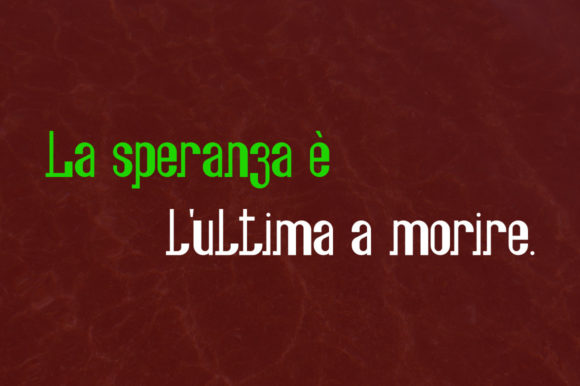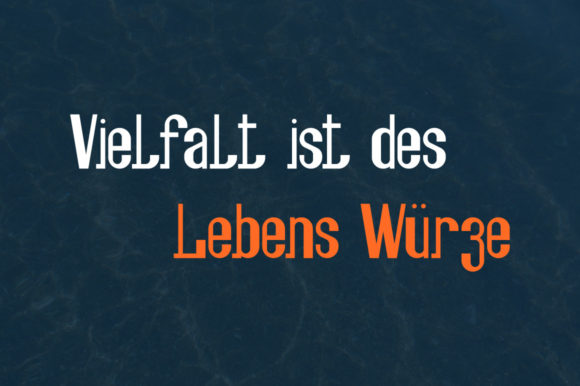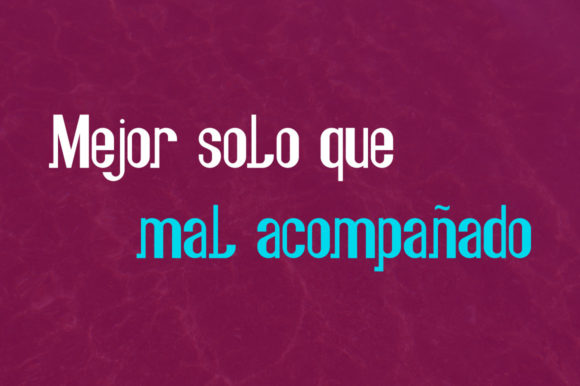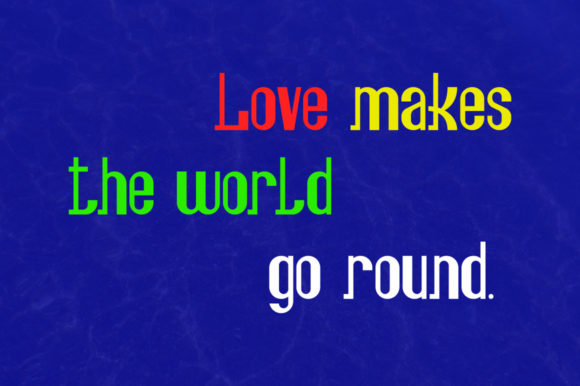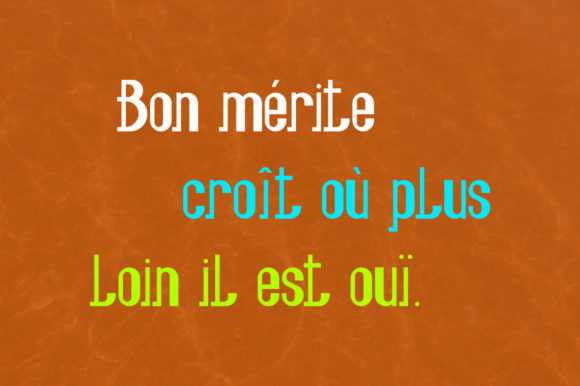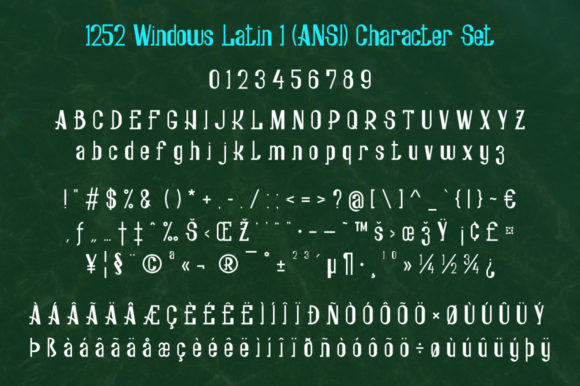
Fesch
Fesch: A Cool and Modern Slab Serif Font
Fesch is a distinctive slab serif font that combines coolness with a modern aesthetic. This versatile typeface is designed to enhance a wide range of design ideas, adding a fun and friendly touch to each project.
Key Features of Fesch
• Cool Design: Features a trendy and appealing appearance that resonates with contemporary design trends.
• Modern Aesthetic: Incorporates current design elements for a fresh, up-to-date look.
• Slab Serif Structure: Maintains the characteristic thick, rectangular serifs typical of slab serif fonts.
• Adaptable Style: Suitable for a variety of design contexts and projects.
• Fun and Friendly Touch: Adds a playful and approachable feel to designs.
Ideal Uses for Fesch
Fesch’s unique characteristics make it particularly well-suited for:
• Modern branding and logo design
• Web and digital media projects
• Poster and advertisement layouts
• Social media graphics and content
• Packaging design for products targeting a youthful audience
When incorporating Fesch into your designs, consider the following tips:
• Use for both headlines and short blocks of text to showcase its cool and modern style
• Experiment with different sizes to highlight the font’s unique details
• Consider pairing with complementary sans-serif fonts for body text to create contrast
• Take advantage of its adaptability across various themes and styles in your projects
Fesch is an excellent choice for designers looking to add a cool and modern slab serif font to their typographic toolkit. Its ability to enhance various design ideas makes it stand out in the world of typography. Whether you’re working on logo designs, creating layouts for digital media, or developing content that requires a fun and friendly touch, Fesch offers the perfect blend of coolness and modernity.
Add Fesch to your creative projects and explore how it can elevate your designs with its cool and modern style. From eye-catching headlines to engaging branding elements, this font provides the tools to create impactful and memorable typography that resonates with audiences seeking a contemporary aesthetic. It’s versatile enough to be used in various contexts, from vintage-inspired designs with a modern twist to cute and friendly layouts that need a touch of sophistication.
Whether you’re creating a magical and mysterious atmosphere or aiming for a more thoughtful and introspective mood in your designs, Fesch can adapt to your needs. Its flexibility allows it to work well in both rustic, vintage-style projects and holiday-themed designs that require a modern update. For those looking to add a touch of nostalgia with a contemporary feel, this font can even complement vintage Christmas-inspired creations with a unique, modern flair.